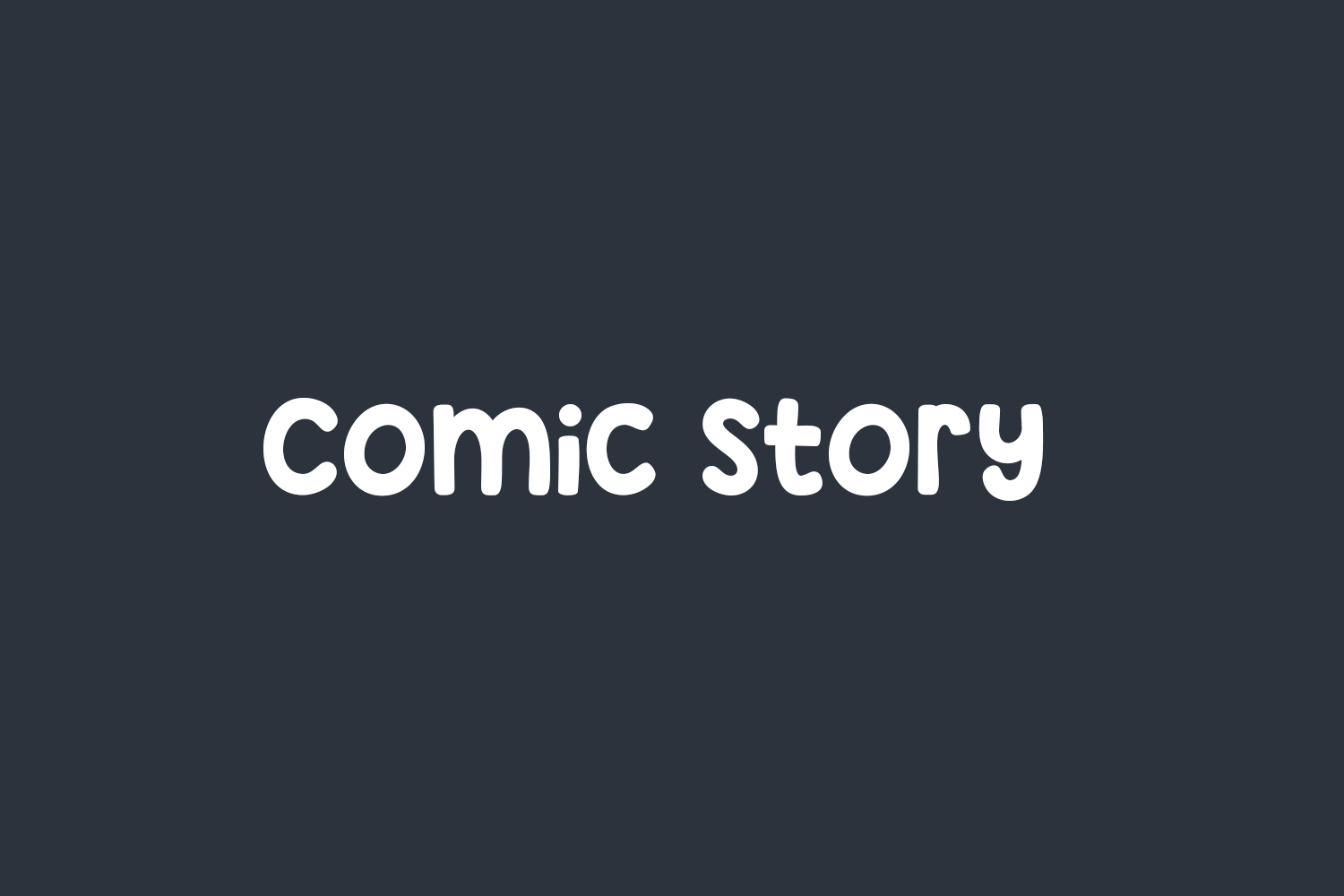
Comic Story Free Font is a modern, clean, stylish, playful and luxurious display font that is perfect for all your graphic design projects like posters, logos, magazines, book covers, banners and more! Get this cute display font, and use it to create beautiful and extraordinary designs. Comic Story Free Font is free for personal use only. Please purchase the full version for commercial use.